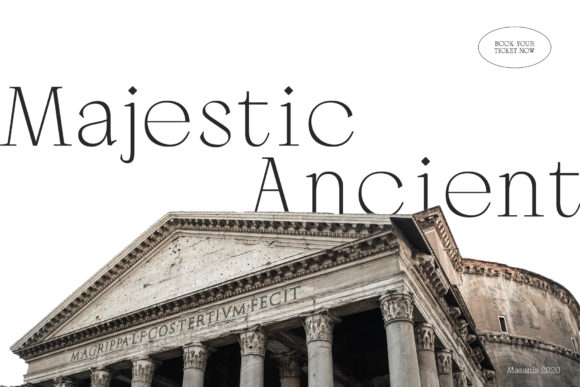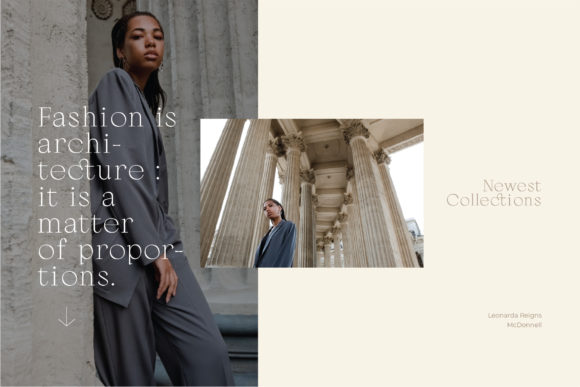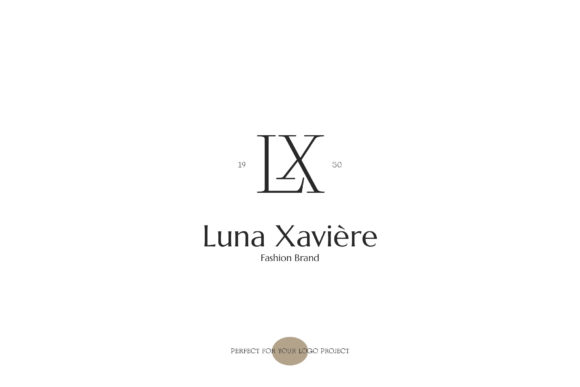
Introduction to Palmire Font
Have you ever stared at a blank canvas, eager to bring your creative vision to life, only to be held back by the perfect font? For many designers, the hunt for the perfect font can be a daunting task. But what if you stumbled upon a design resource that effortlessly elevates your creative project to the next level?
Enter the Palmire Font, a modern serif font crafted with a delicate touch of elegance. With its high-quality design and versatility, this font has become a go-to choice for designers seeking to add a touch of sophistication to their work. Whether you’re working on a branding project, creating Instagram-worthy graphics, or experimenting with calligraphy scripts for DIY projects, the Palmire Font is sure to impress.
Palmire Font Key Features
- Unique, elegant design that adds a touch of sophistication to any text
- Perfect for use in graphic design, web design, and digital art projects
Honest Review: Palmire Font
I recently stumbled upon the Palmire Font, and I’m excited to share my thoughts on this design resource. Overall, I was impressed with its high quality and versatility.
What works well: ✨ The Palmire Font has a unique and elegant design that makes it perfect for creative projects that require a touch of sophistication. The font is available for free download, making it an excellent option for designers on a budget. The transparent background allows for seamless integration with any design element.
What doesn’t work well: ⚠️ One limitation I noticed is that the font may not be suitable for very small text sizes, as the strokes can become blurry. Additionally, the font family is limited to a single style, which may not be ideal for projects that require multiple font weights.
- Single font style
- May not be suitable for small text sizes
Overall, the Palmire Font is a great addition to any designer’s toolkit. While it may have some limitations, its unique design and free availability make it a valuable resource for creative projects.
Getting the Most Out of Palmire Font
To get the most out of the Palmire Font, be sure to download the high-quality version with a transparent background. This will allow you to easily layer the font over other design elements and create a seamless look. Additionally, use the font in a creative project that showcases its unique characteristics.
The Palmire Font is ideal for use in a variety of creative projects, including logos, graphics, presentations, and documents. Its high-quality design and transparent background make it a valuable resource for designers and non-designers alike.
What is the recommended font size for the Palmire Font?
The recommended font size for the Palmire Font varies depending on the specific design application and the intended use of the font. However, as a general guideline, we recommend using the Palmire Font at a minimum size of 12 points for optimal legibility. For larger text, you can adjust the font size accordingly to suit your design needs.